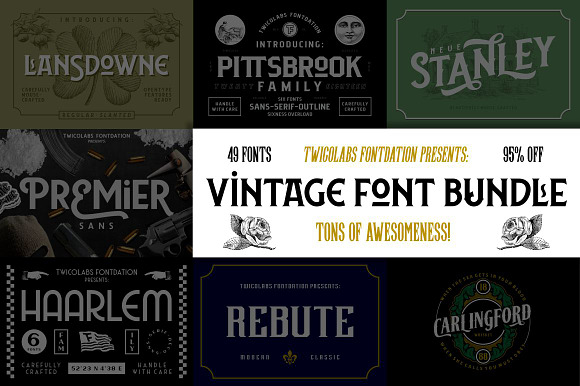
Vintage Font Bundle 49 Fonts In 1
2018 been a great year for us, to celebrate the end of this awesome year, we're giving you a surprise. Yes! Finally, we're jumping into the bundle bandwagon too. So, here's our Vintage Font Bundle! (drum rolls)
Enjoy this bundle of our 49 vintage fonts. This bundle gives you various versatile fonts, suits best for your vintage/classic designing projects. Normal price for these fonts are at around $320, but with this bundle, you'll only have to pay $17, THAT'S 95% OFF! All of them are packed with some nice OpenType Features, such as: Alternate Chars, Stylistic Sets, Ligatures, Swashes, etc, gives you room to explore the awesomeness on every fonts.
Vintage Font Bundle 49 Fonts In 1 by Twicolabs Fontdation fits naturally into Branding, posters, packaging, typography.